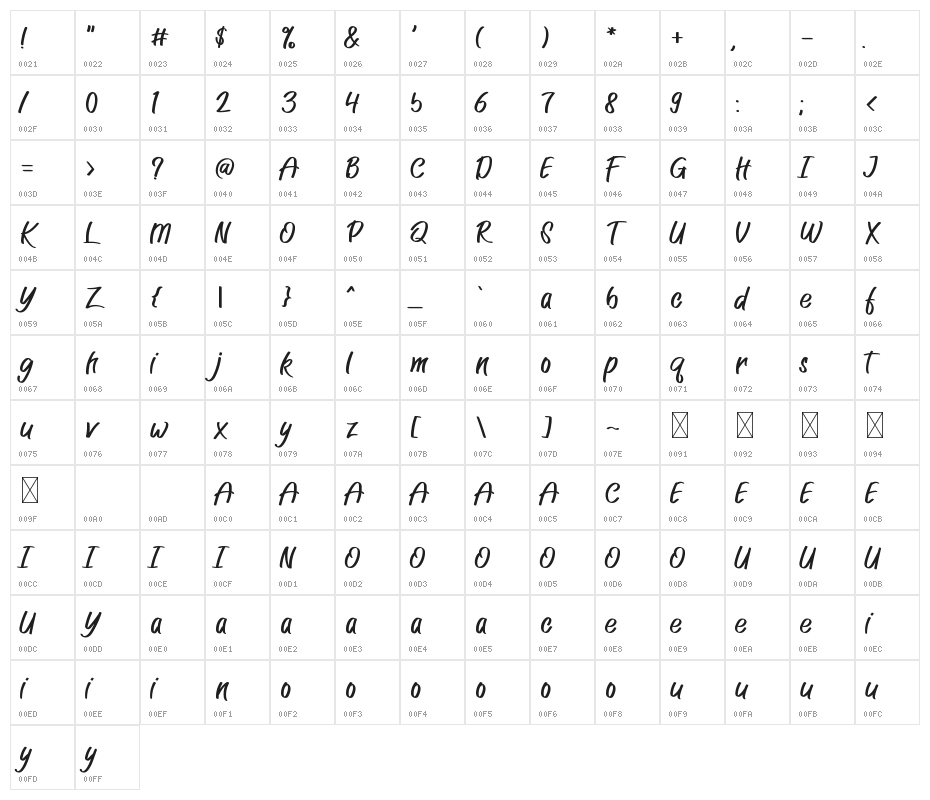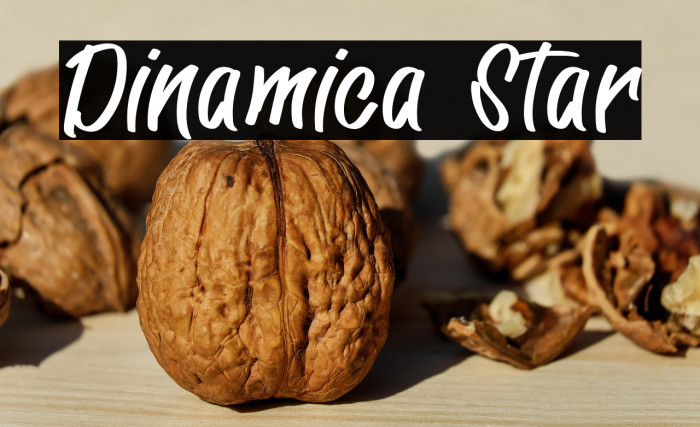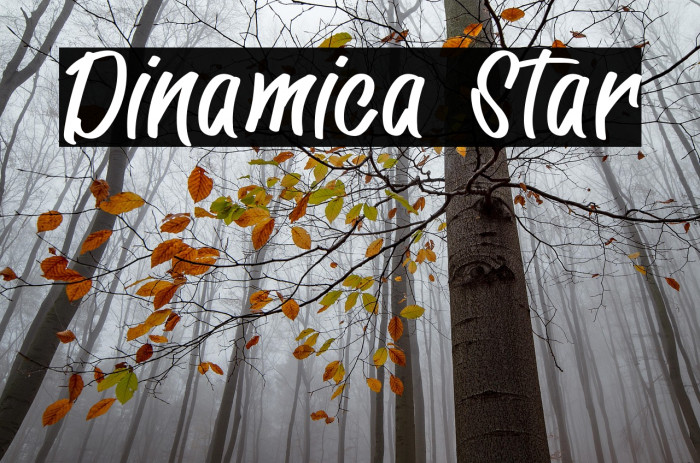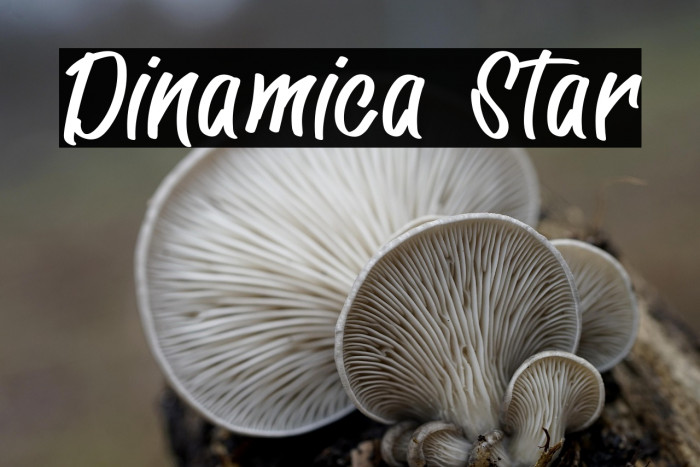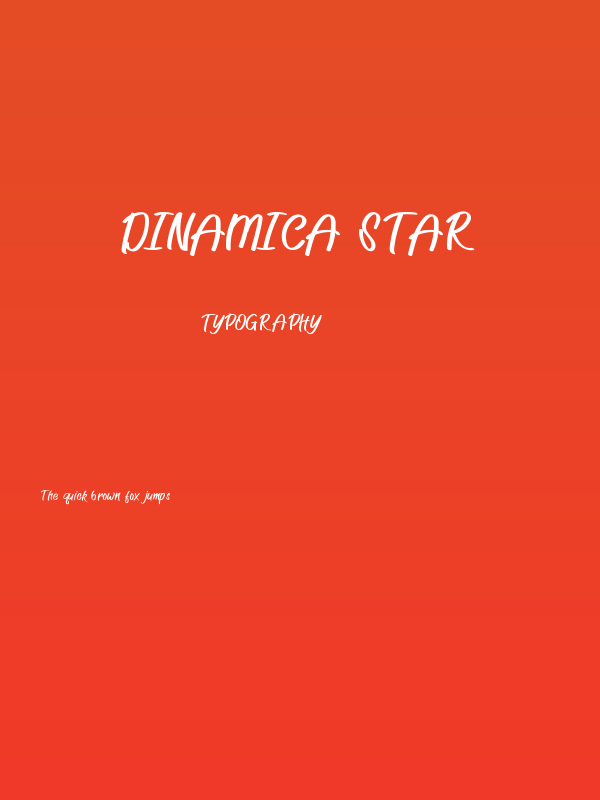
Dinamica Star Font
Dinamica Star Description
This font exhibits a dynamic and energetic style, characterized by its flowing, cursive-like strokes that convey a sense of movement and flair. The letters are slightly slanted, adding to the sense of dynamism, while maintaining a clear and legible form. The uppercase letters are bold and prominent, while the lowercase letters maintain a consistent flow, making it suitable for both headings and body text. The numerals and special characters are designed to match the overall style, ensuring a cohesive look across all uses.
| Proposed Projects | Ideal for branding, advertising, and creative projects that require a lively and engaging typeface. |